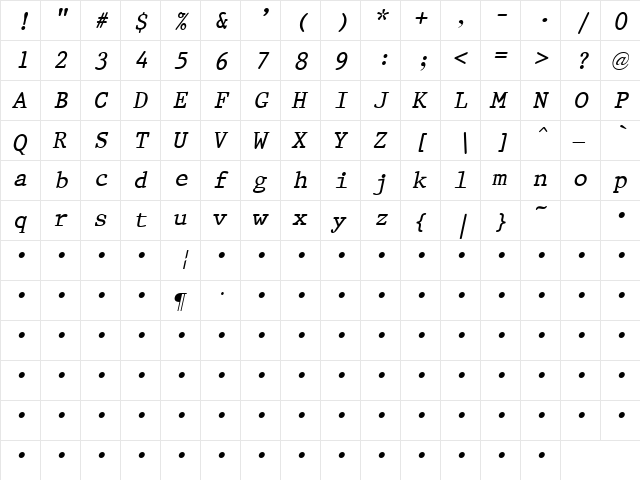
Fuzzy 1 Italic
Design Context for Fuzzy 1 Typeface
Fuzzy 1 is a composed and adaptable typeface that performs quietly and consistently across a wide range of design contexts. Its italic angle brings a sense of urgency and motion to the letterforms.
Pro Tip: Use Fuzzy 1 for emphasis, pull quotes, and subheadings where its slanted energy can add rhythm to the layout.